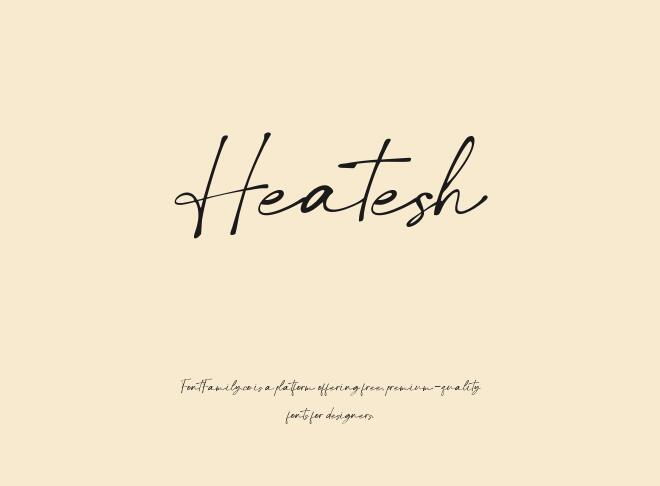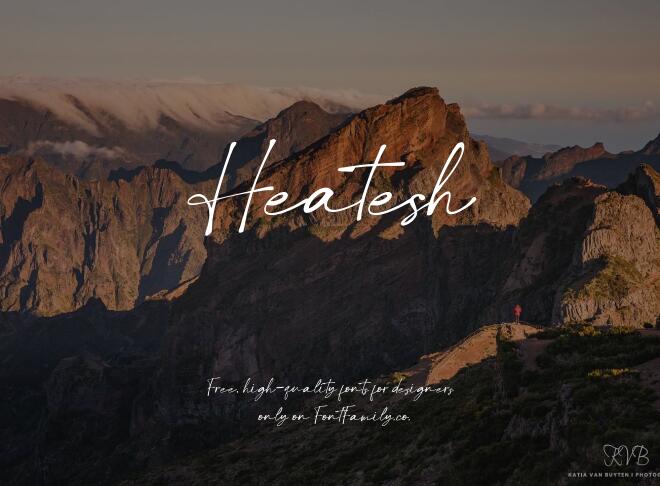
Heatesh Font
Heatesh Font is a modern, rounded script font designed by Heatesh Shrestha. This handwritten-style font offers a unique blend of natural handwriting and modern design elements, making it a perfect choice for personal branding, wedding invitations, greeting cards, and social media posts. Its rounded edges give it a soft, friendly appeal, while its modern design ensures it stands out in any design project. Heatesh Font is similar to popular script fonts but possesses its own distinctive characteristics that set it apart. Free for personal use, it offers designers an opportunity to add a touch of elegance and uniqueness to their projects. With its versatile design, Heatesh Font is a must-have addition to your font collection.